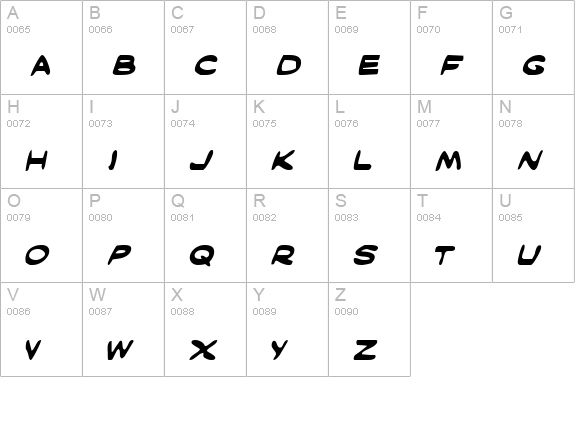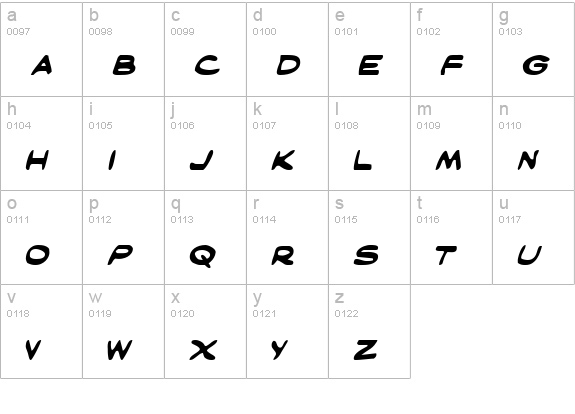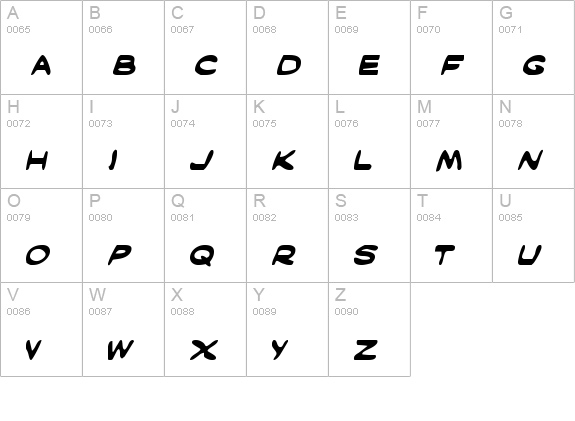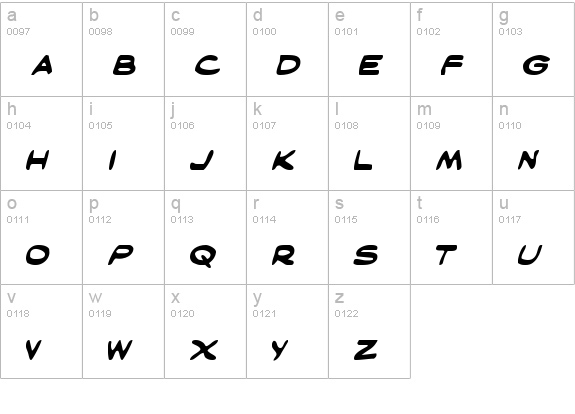
Masked Marvel Expanded is a distinctive, extended-width variant in the Masked typeface family \xE2\x80\x94 well suited to design and typography projects.
Introducing Masked Marvel Expanded, a captivating and versatile font that exudes an aura of mystery and sophistication. With its bold and intricate letterforms, this font commands attention and is perfect for adding a touch of intrigue to any design project. Crafted with meticulous attention to detail, Masked Marvel Expanded offers a plethora of stylistic alternatives, allowing you to experiment and create unique and eye-catching compositions. Whether used for headlines, logos, posters, or invitations, this font effortlessly adds a touch of elegance and allure. What sets Masked Marvel Expanded apart is not only its stunning design but also its versatility. It seamlessly adapts to various styles and themes, making it suitable for both modern and vintage-inspired designs. Its wide range of characters, including ligatures and alternate glyphs, provides endless opportunities to customize and personalize your creations. But the best part? Masked Marvel Expanded is available for free! Yes, you heard it right. This exceptional font can be freely downloaded at FontsMarket.com, a trusted source for high-quality fonts. So, you can enhance your design projects without breaking the bank. Whether you're a professional designer or a creative enthusiast, Masked Marvel Expanded is a must-have addition to your font collection. Its striking aesthetics, versatility, and availability as a free download make it an invaluable resource for bringing your designs to life. Embrace the allure of Masked Marvel Expanded and let your creativity soar to new heights.